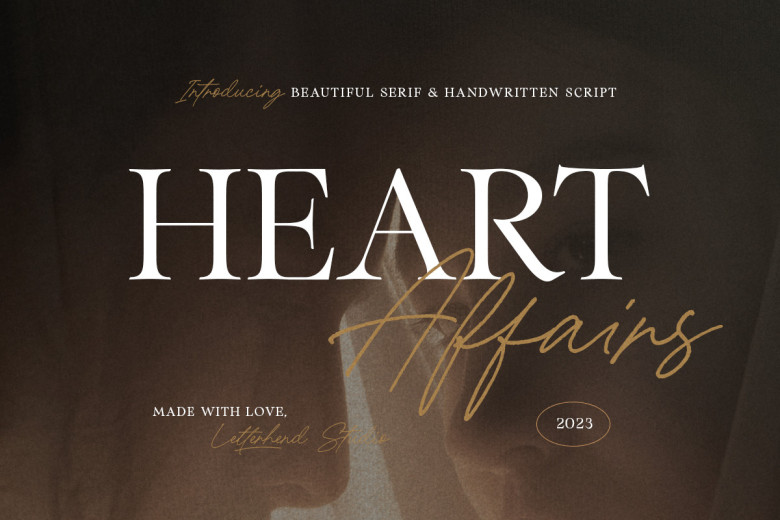
Heart Affairs Font
Welcome our brand new font duo Heart Affairs – perfect for both gentlemen and ladies – it combines elegant serif fonts with handwritten script for an eye-catching combination! Specifically curated to offer classic appeal with contemporary edge in script fonts.
Heart Affairs elevates any design project with timeless elegance and chic adaptability – ideal whether it’s wedding ceremony invitations, brand materials, editorial layouts or layouts for editorial use.
Heart Affairs Font Duo